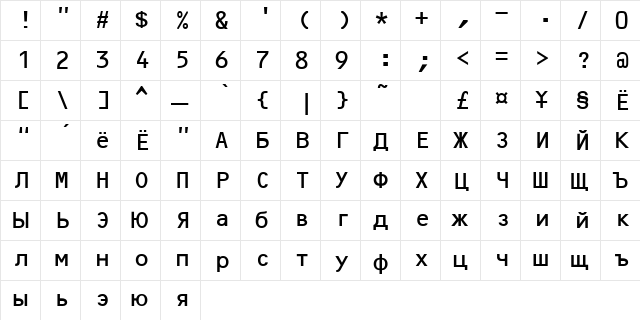
OCR B Regular Font Preview
OCR B Regular
OCR B Regular Font Details
Design Context for OCR B Typeface
OCR B offers clean, dependable letterforms without strong stylistic allegiance, making it a practical choice for designers who need flexibility.
Pro Tip: Use OCR B in both headline and body roles to test its range before committing to a single application.